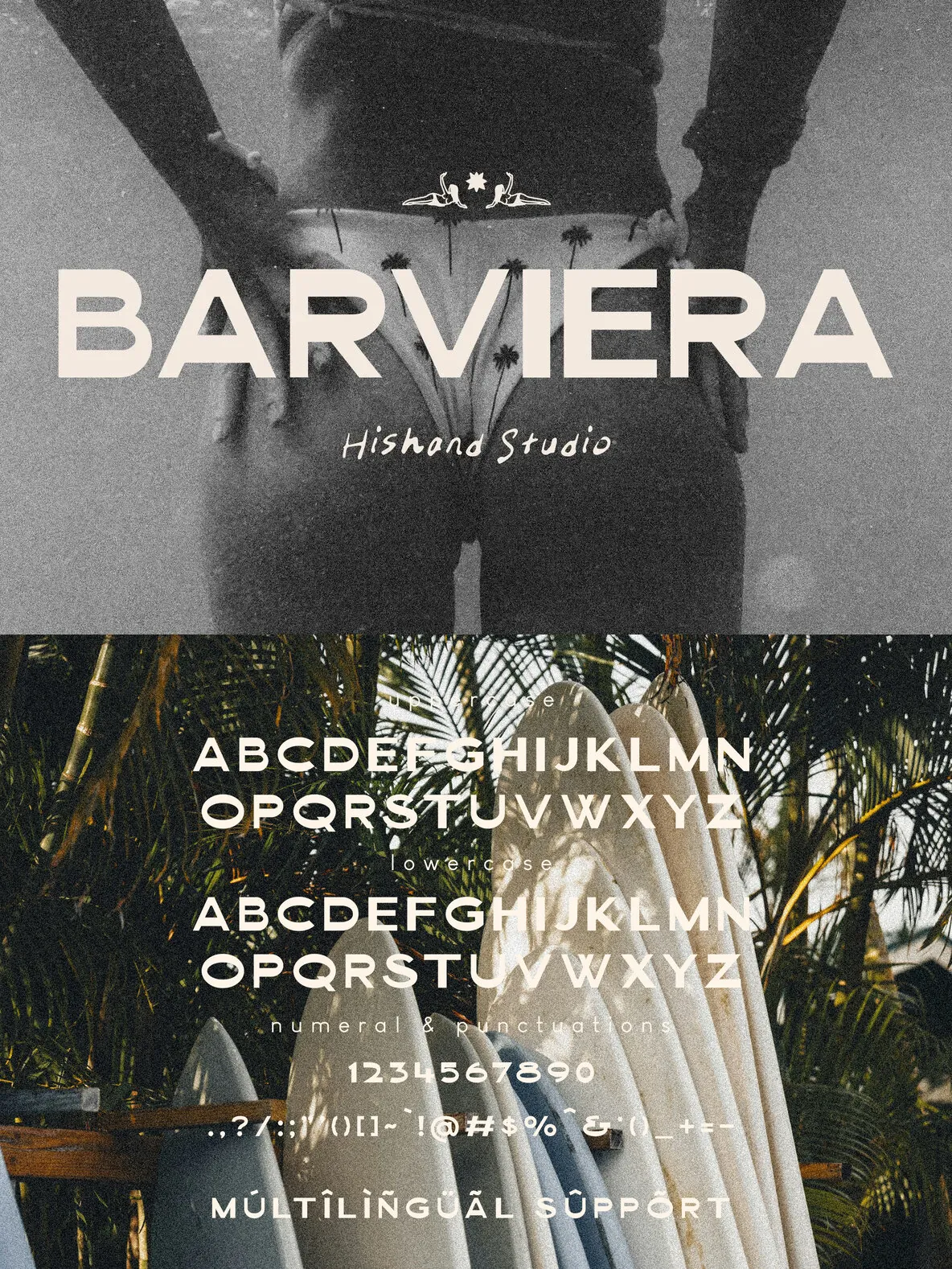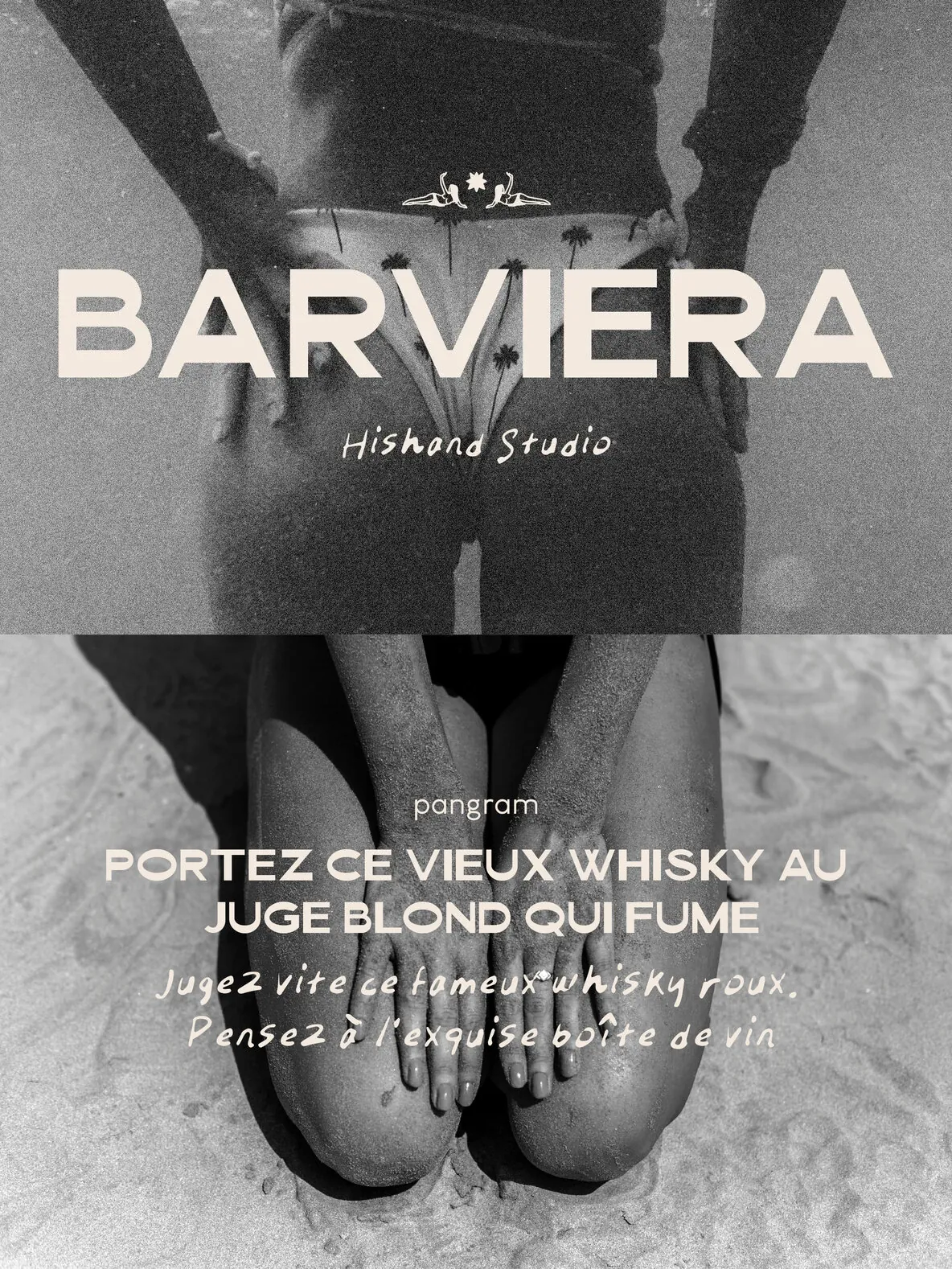
Barviera — Bold Modern Display Flair
Barviera is a bold display sans-serif font with a clean, modern presence. Its clear shapes and playful balance bring fresh creative energy to every word, helping typography stand out with confidence and style. Designed for logos, posters, and branding, Barviera offers a polished tone that still feels lively and approachable.
Smooth curves and sharp edges give Barviera a steady visual rhythm with subtle sophistication. Use this sans-serif typeface for a vivid startup identity, a stylish lifestyle brand, or any design that needs a cool modern edge. Its mix of professionalism and fun makes it a strong choice for display typography with personality.